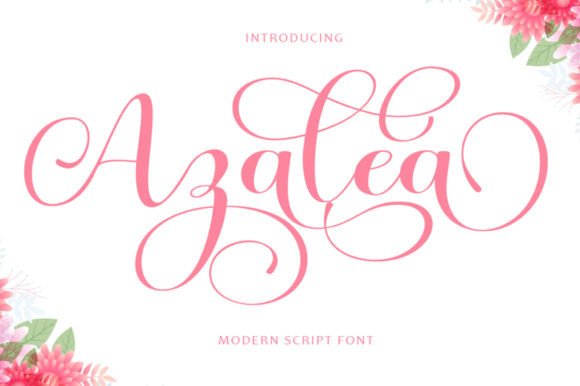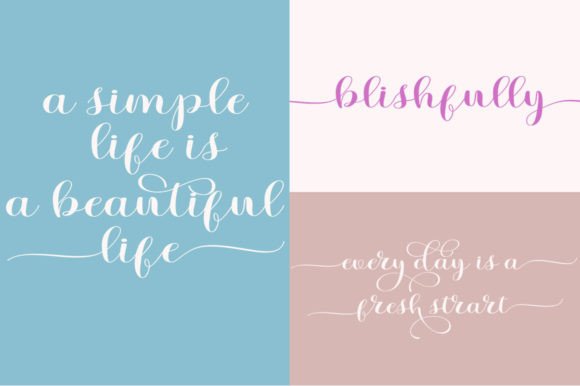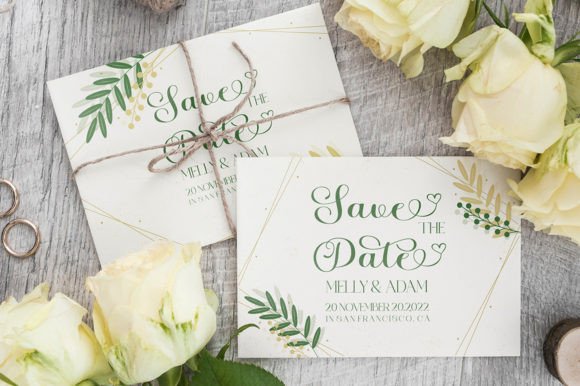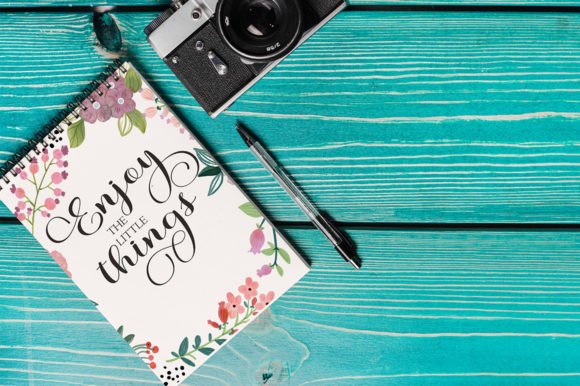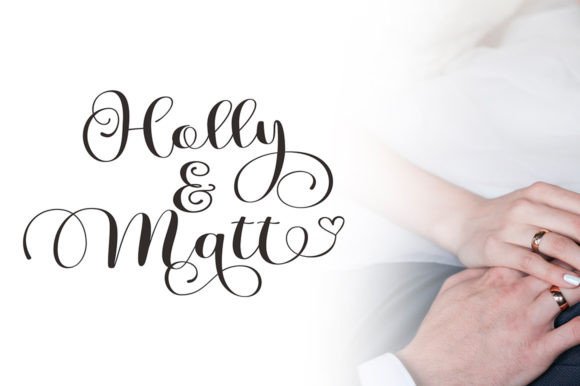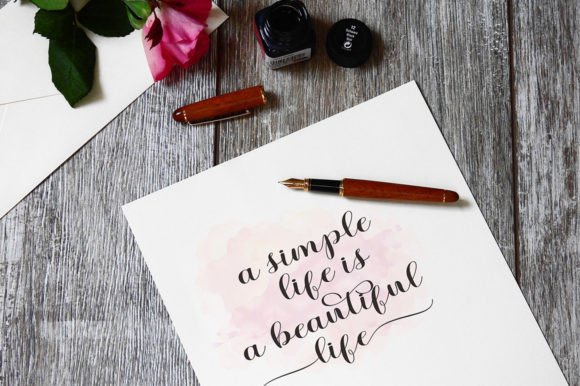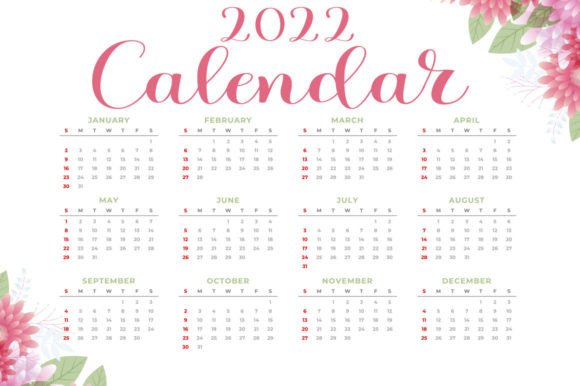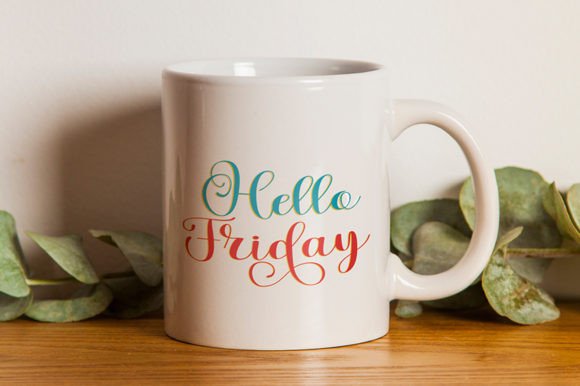
Azalea Font
About Azalea Font
“Azalea” is a modern script font with a charming irregular baseline that brings a trendy and feminine touch to your designs. This versatile font is a perfect choice for a variety of creative applications, including wedding invitations, thank you cards, quotes, greeting cards, logos, business cards, and more. It pairs beautifully with ink or watercolor styles, adding a touch of elegance to your projects.
One of the standout features of “Azalea” is its trendy and feminine design. The font’s modern script style, combined with the irregular baseline, creates a sense of uniqueness and sophistication. Whether you’re working on wedding stationery, quotes, or any other design project, “Azalea” adds a lovely and contemporary flair.
The versatility of “Azalea” is a significant asset. It can adapt seamlessly to various design aesthetics and themes, ensuring that it remains a valuable choice for a wide range of creative projects.
For wedding invitations and thank you cards, “Azalea” is a perfect fit. Its elegant and trendy appearance sets the tone for a stylish and memorable celebration. It adds a touch of sophistication and personalization to wedding stationery, leaving a lasting impression on couples and their guests.
Quotes, greeting cards, and business cards also benefit from the beauty of “Azalea.” Its stylish and feminine style makes your messages more engaging and visually appealing, whether you’re conveying heartfelt sentiments or promoting your brand.
In logo design, “Azalea” can help create a distinctive visual identity. Its modern and irregular script adds a unique and memorable element to your logo, making it stand out in the marketplace.
For projects that involve ink or watercolor styles, “Azalea” complements these artistic mediums beautifully. It enhances the overall aesthetics of your artwork, creating a harmonious and elegant look.
The fact that “Azalea” is PUA encoded means that you can easily access all of its beautiful glyphs and swashes. This feature provides you with even more creative possibilities, allowing you to customize and personalize your designs effortlessly.
In summary, “Azalea” is a modern script font with an irregular baseline that adds a trendy and feminine touch to your designs. Its versatility makes it suitable for various applications, including wedding invitations, thank you cards, quotes, greeting cards, logos, business cards, and more. With “Azalea,” you have a font that infuses your projects with elegance and contemporary style, leaving a lasting impression of beauty and sophistication.